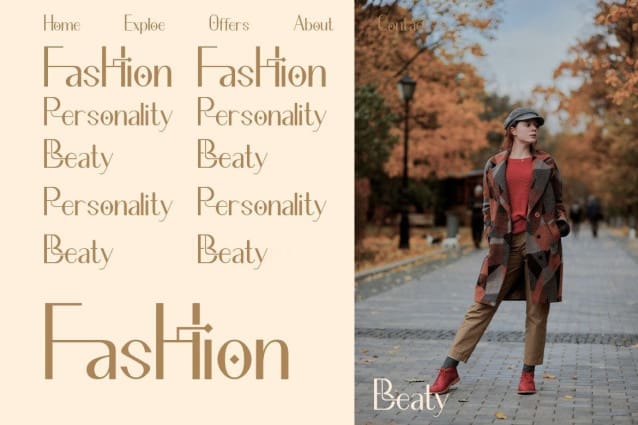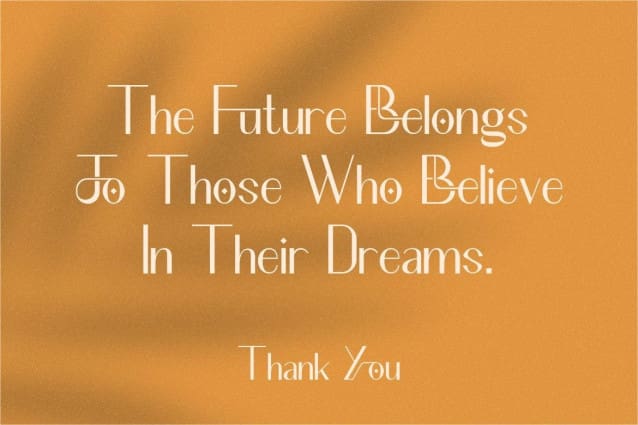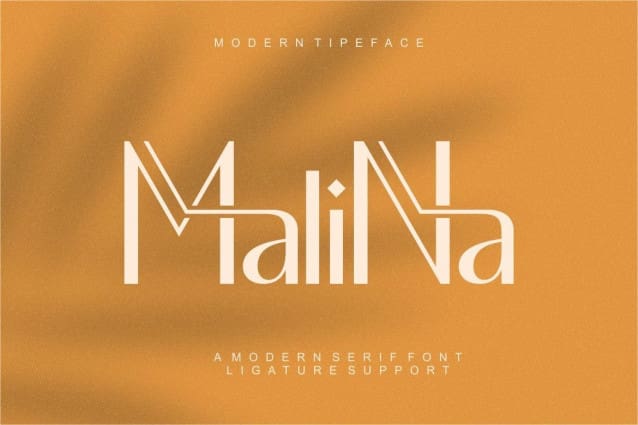
Malina Font
Malina Font is a modern and authentic font. Perfect for both professional and branding needs of a product. This font is suitable for any branding project like quotes, logo, blog header, poster, banding, letter, invitation, stationery etc